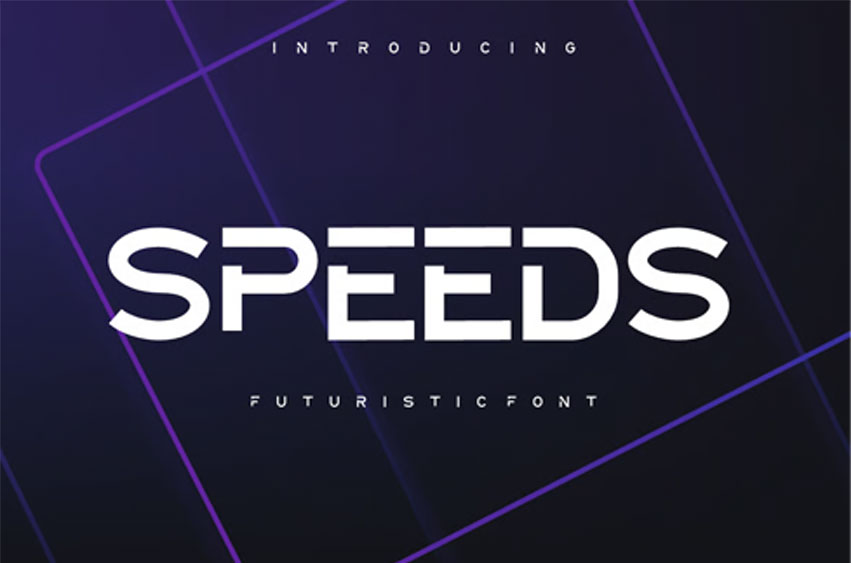
Speeds Font
Speeds Font Grab attention with this ultra-modern, dynamic graphic perfect for your next project. Featuring a bold, block-style typeface against a sleek, purple-hued geometric background, this design perfectly captures the essence of speed, technology, and mystery.
Ideal for use as a powerful Title Card, Logo Reveal, Game Intro Screen, Event Graphic, or YouTube Channel Art for themes like e-sports, racing, technology, cyberpunk, or science fiction titles, posters, and many more.